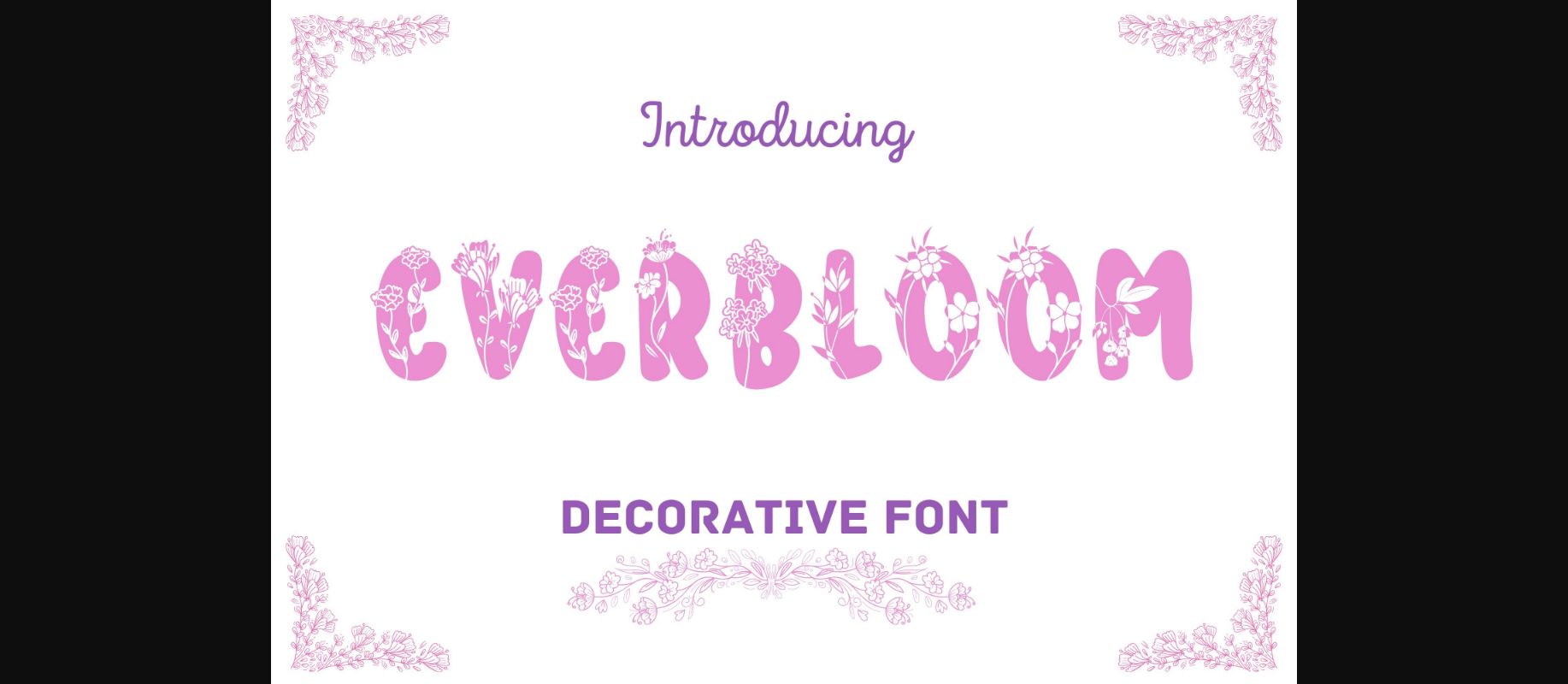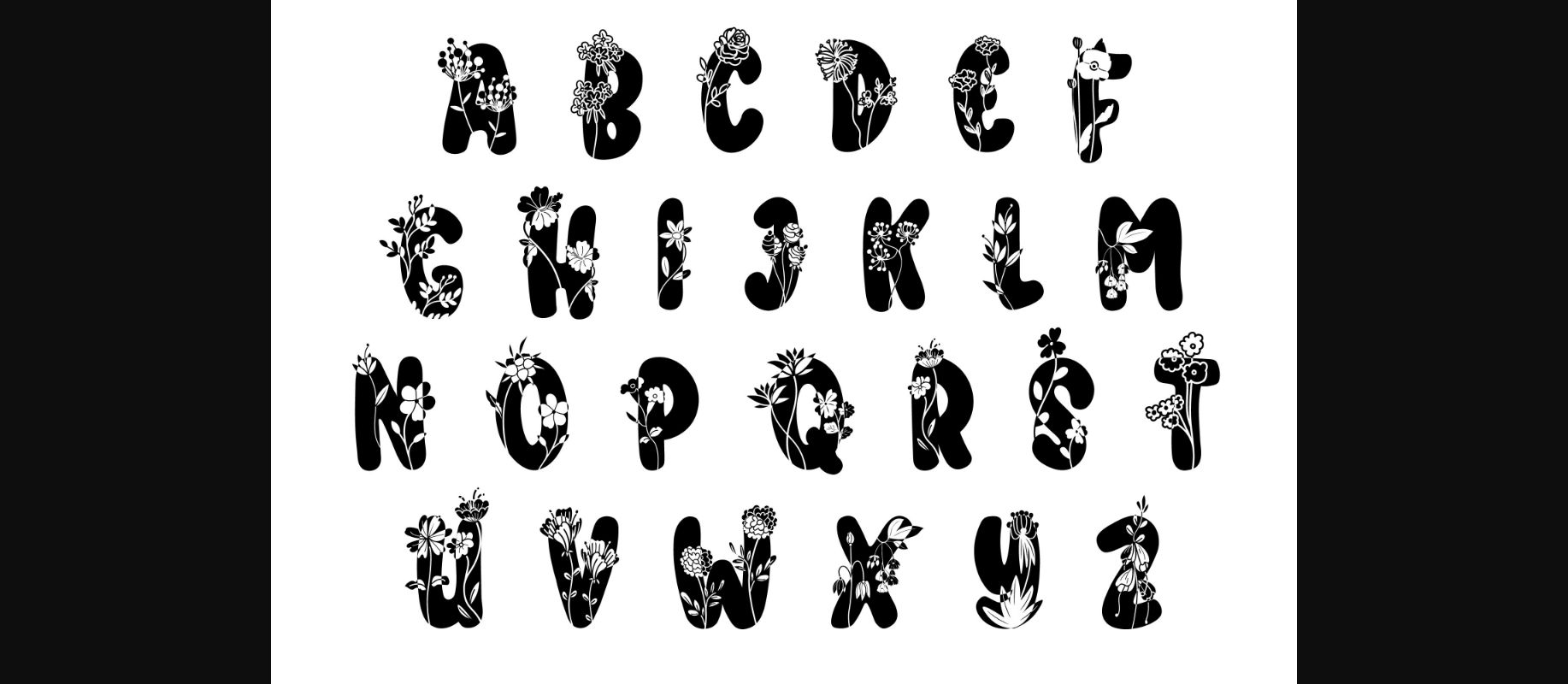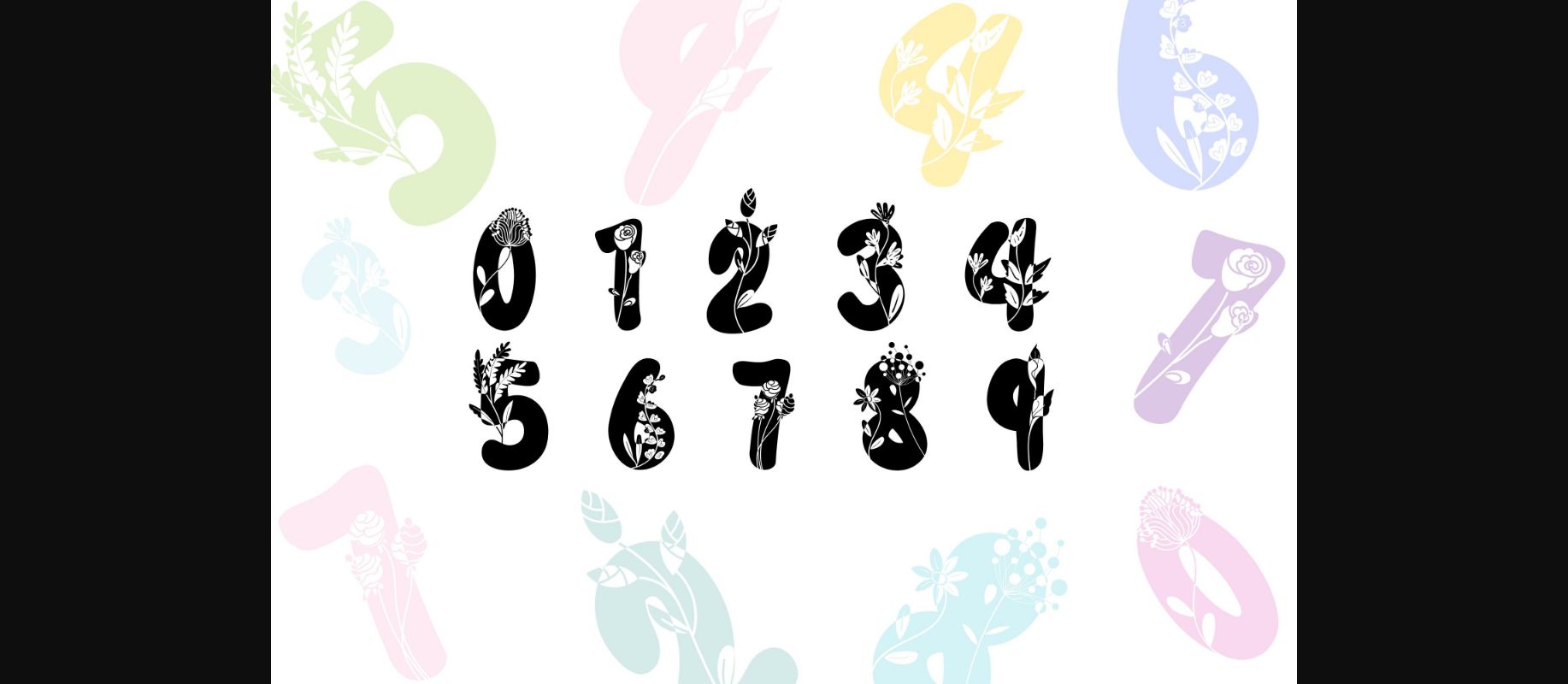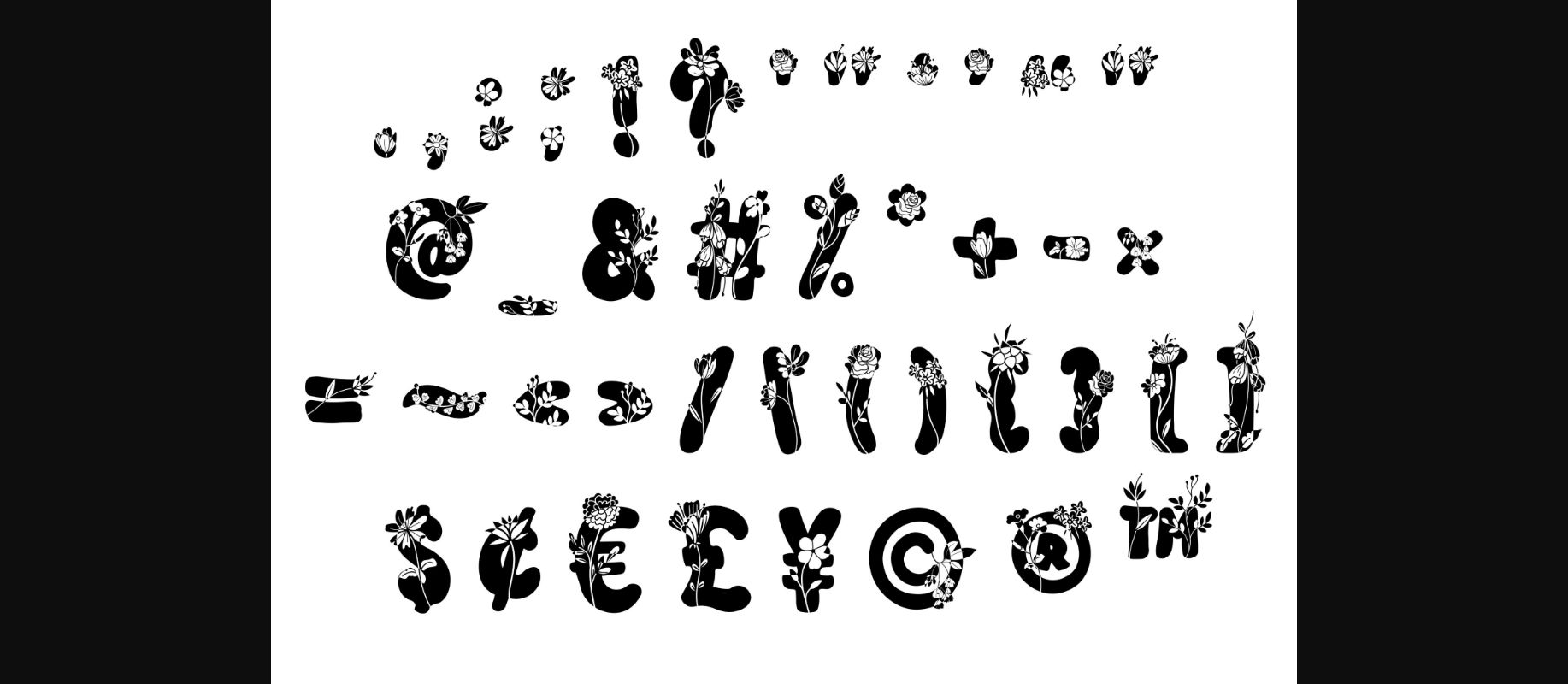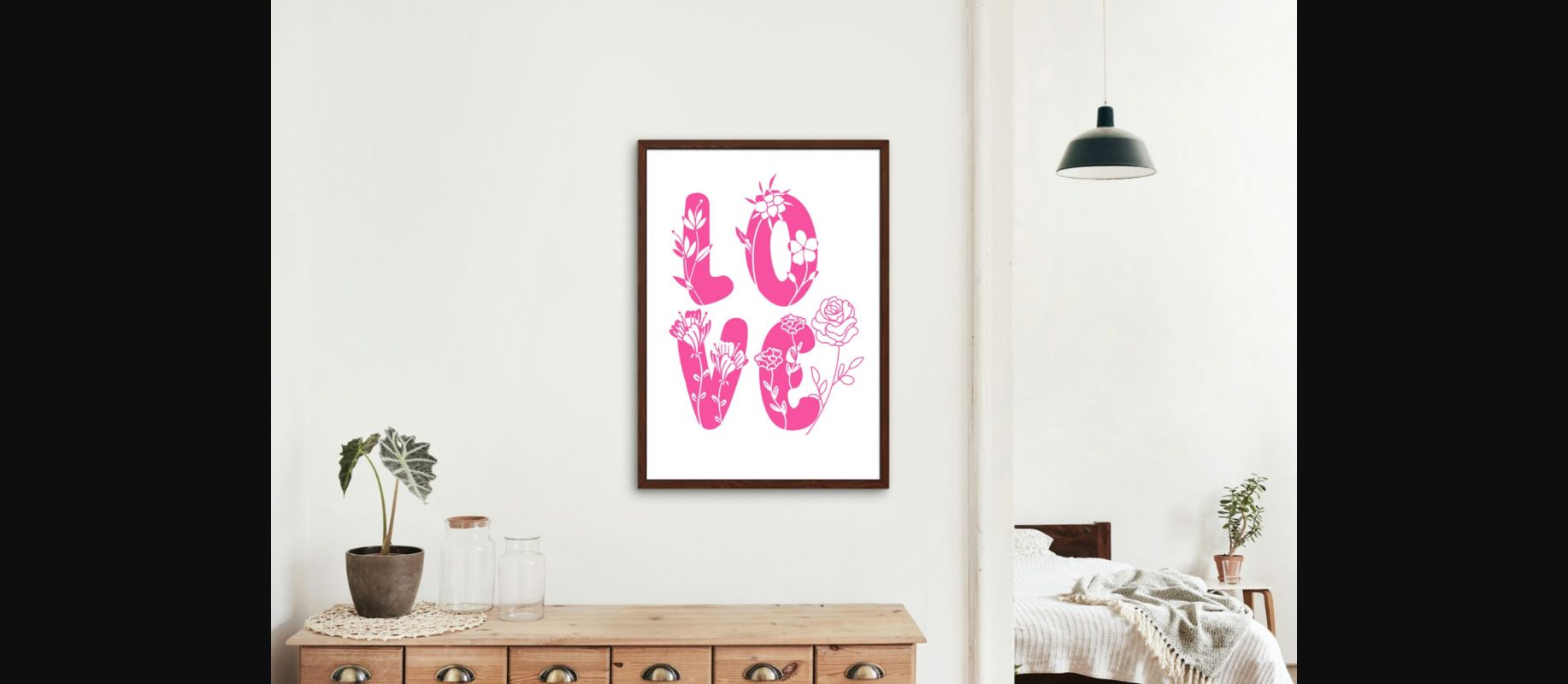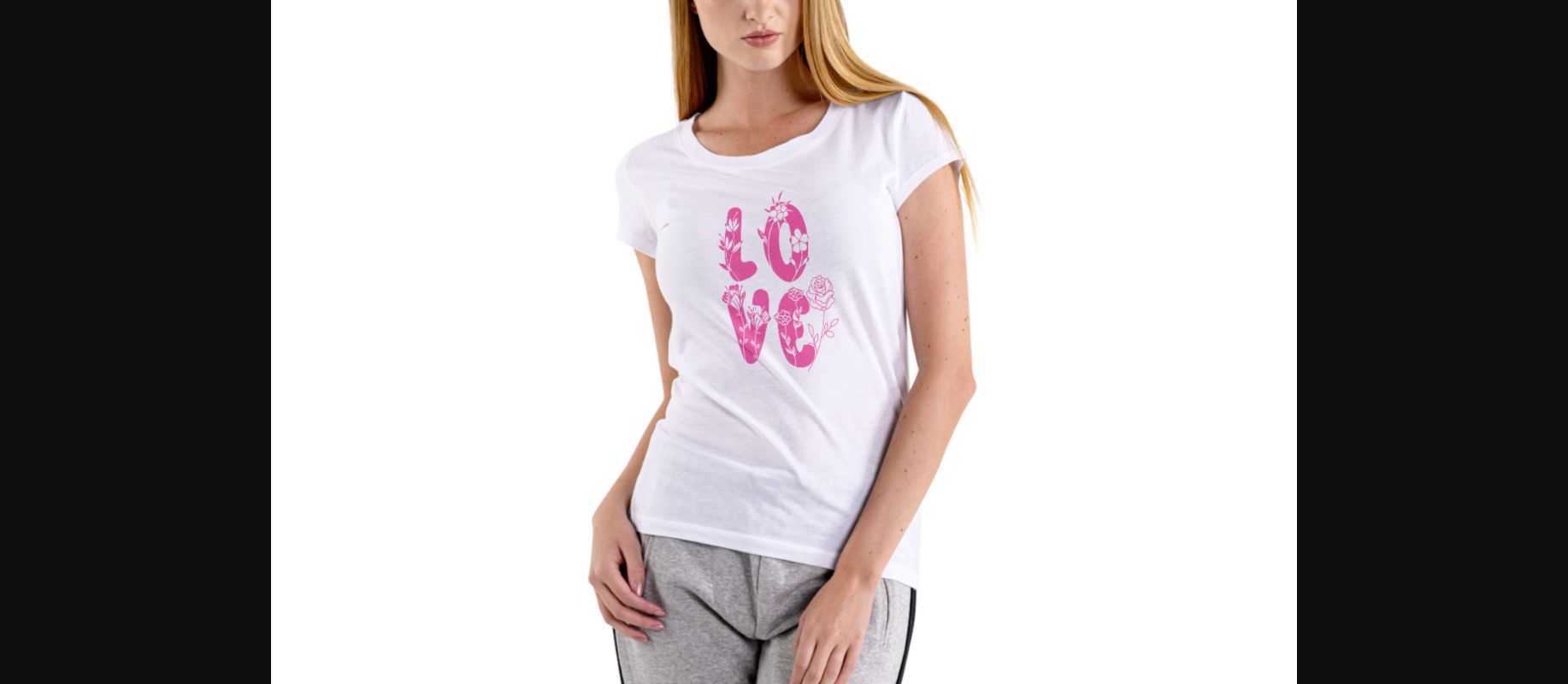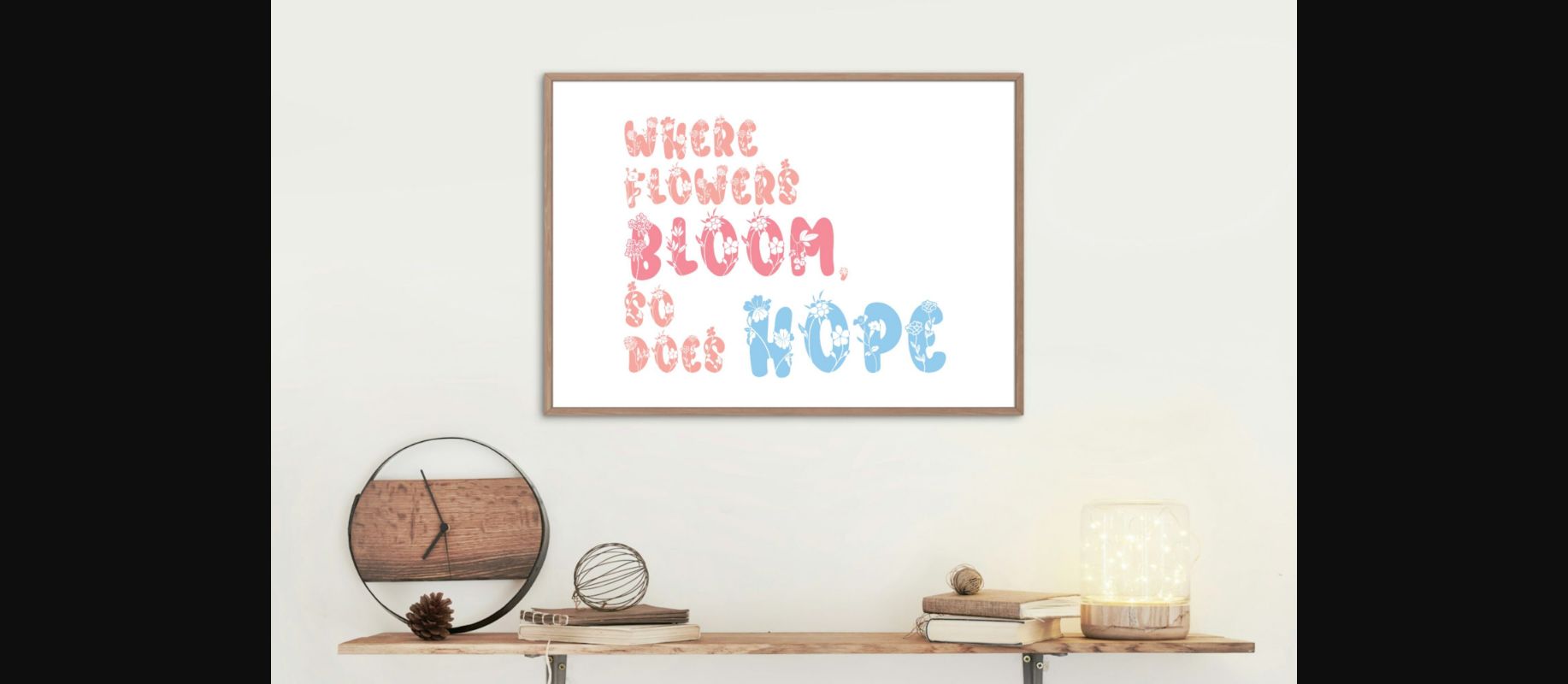
About Everbloom Font
Introducing Everbloom, a unique and decorative typeface blooming with a variety of flowers intricately woven into each letter. Perfect for adding a touch of nature-inspired beauty to your designs, this alphabet is ideal for invitations, logos, and creative decorations.